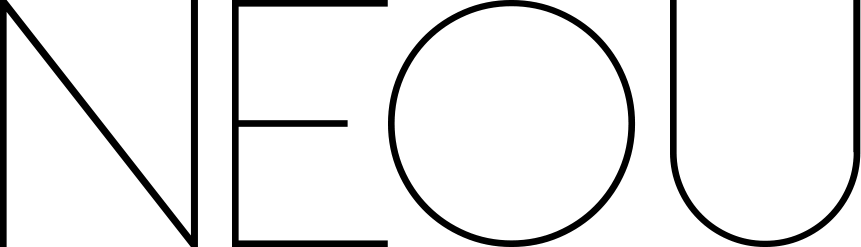
Neou Font
Designed byAndre Uenojo
If you are facing the problem of a lack of proper fonts, using Neou can be a great solution. All characters of this sans serif font are designed in two different styles. Although this modern minimalist font does not support lowercase letters, it conveys a sense of respect and formality to the audience.